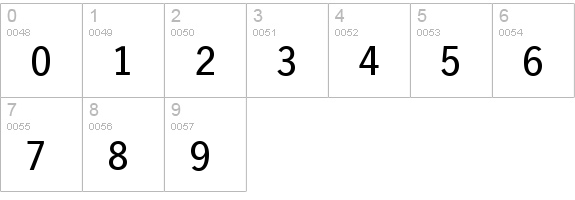
Hamburg-Regular is the standard, neutral variant in the Hamburg typeface family \xE2\x80\x94 well suited to general body text, paragraphs, and standard typographic work.
Hamburg-Regular is a modern and sleek font that exudes sophistication and elegance. Its clean lines and geometric shapes make it perfect for a variety of design projects, from logos and branding to website headers and body text. This font is the epitome of versatility, as it effortlessly transitions between both formal and informal settings. Whether you're creating a professional presentation or designing a casual invitation, Hamburg-Regular has got you covered. One of the standout features of Hamburg-Regular is its legibility. Each letter is carefully crafted to ensure maximum readability, even at smaller sizes. This makes it an excellent choice for any project that requires clear and concise communication. But what truly sets Hamburg-Regular apart is the fact that it is available for free. That's right, you can download this incredible font at no cost from FontsMarket.com. This means that you can enhance your designs without breaking the bank, making it a valuable asset for both professional designers and hobbyists alike. So why wait? Elevate your designs with Hamburg-Regular and experience the power of a free font that doesn't compromise on quality. Download it now from FontsMarket.com and let your creativity soar.